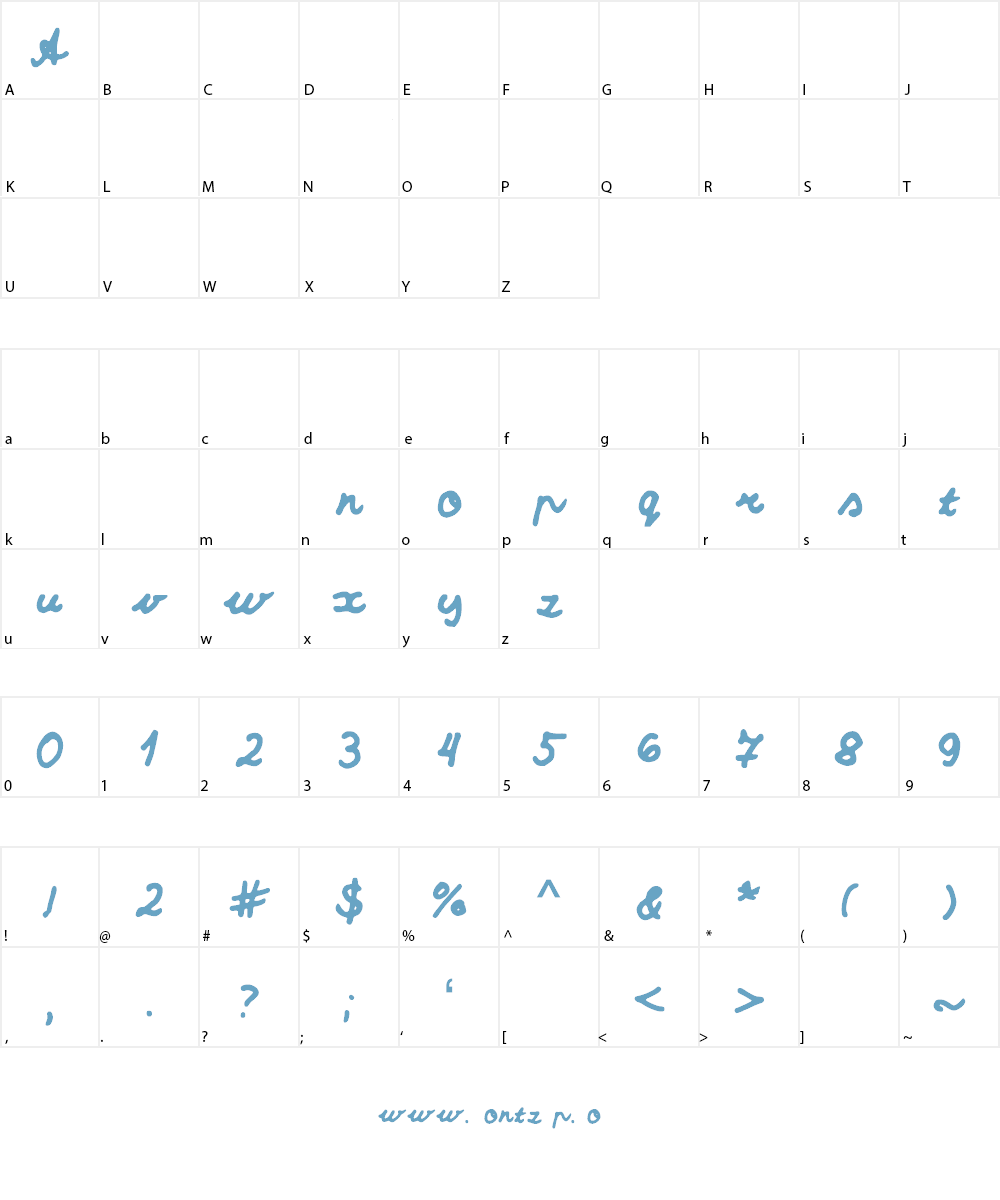
This is a font of my handwriting. I'm gonna use it in my Elsa ranking. Check out my channel: https://www.youtube.com/channel/UCSBotDdhBODj3qM3bRnCTvA